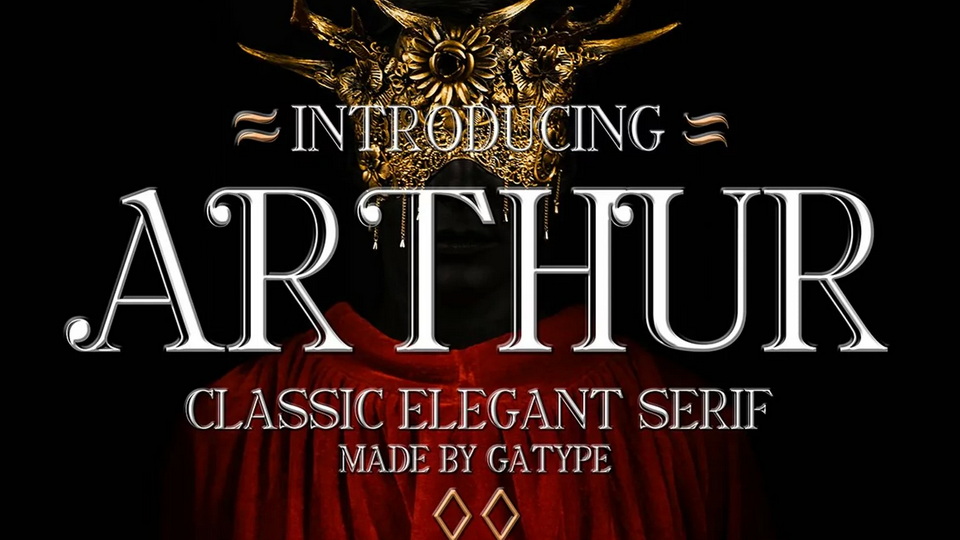
Download Arthur font, an edgy modern serif typeface with the long, classic serifs make for a unique high-contrast. It appears regularly and boldly with lower and uppercase letters, numbers, punctuation marks plus multilingual letters.